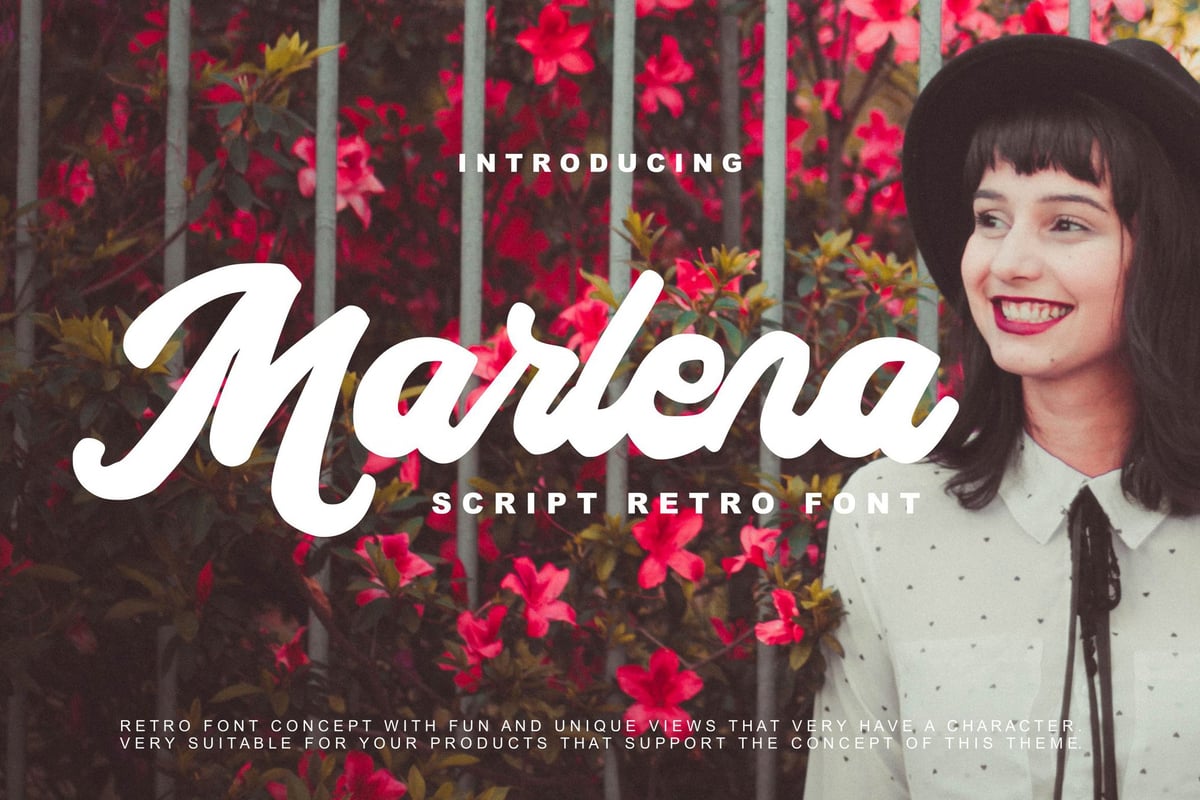
Marlena - Script Retro Font
Marlena is a bold retro script font with calligraphy charm — built for branding, invitations, and standout designs.
With its flowing curves and vintage personality, Marlena brings warmth and character to any project. Whether you're designing wedding invitations, greeting cards, business cards, quotes, or posters, this typeface delivers a timeless retro aesthetic with modern versatility.
Marlena is packed with OpenType features to give you full creative control:
- Stylistic Sets
- Stylistic Alternates
- Contextual Alternates
- Swash characters
- Ligatures